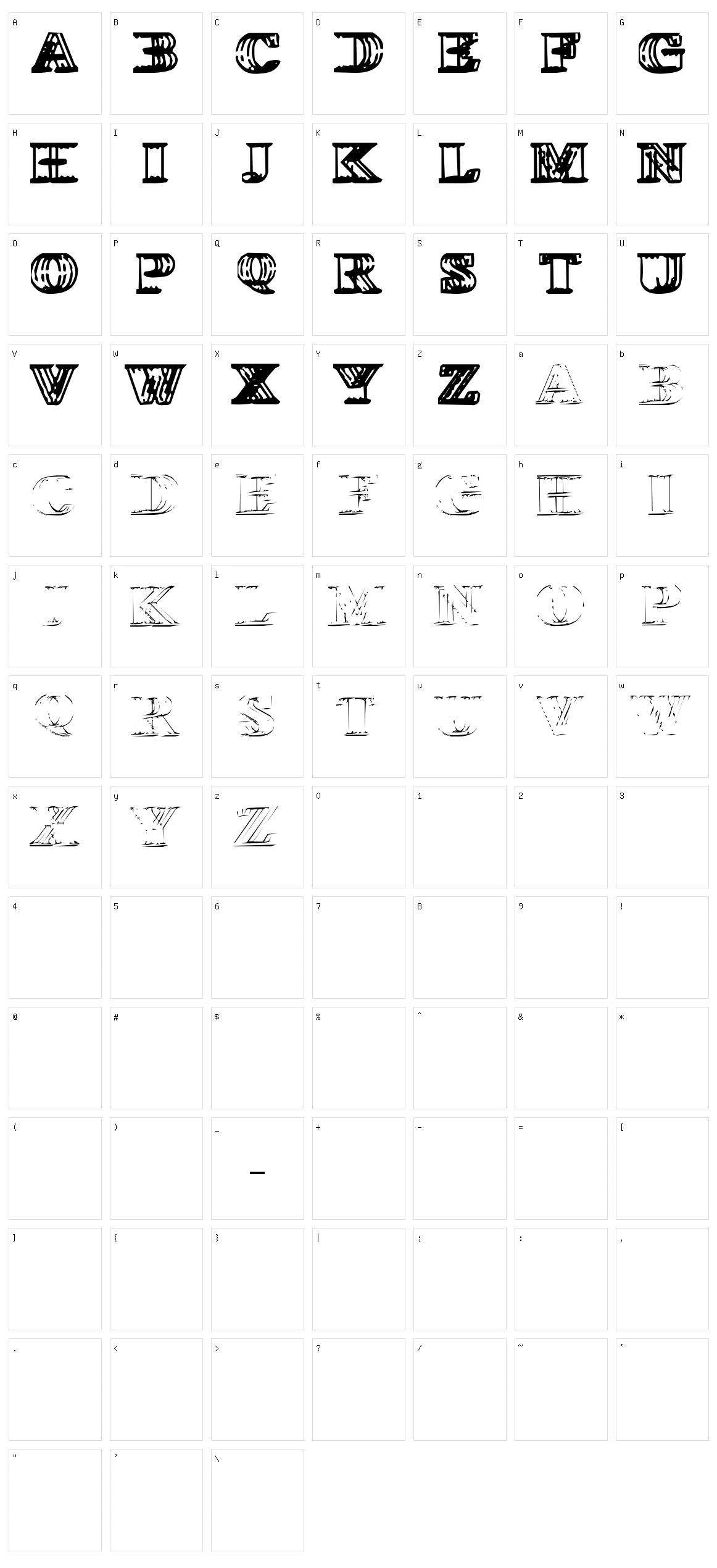
The free font Wireframe Davenport is carefully designed by Spork Thug Typography, showcasing a thoughtful balance of creativity and usability and falls under the Distorted font style. When you download the ZIP file, it contains only 20.48 KB of font files, making it lightweight and quick to download. Please review the license details below to understand permitted usage and distribution rights. If license information is not available, we recommend using this font for personal projects only or contacting the author directly for commercial usage permissions.